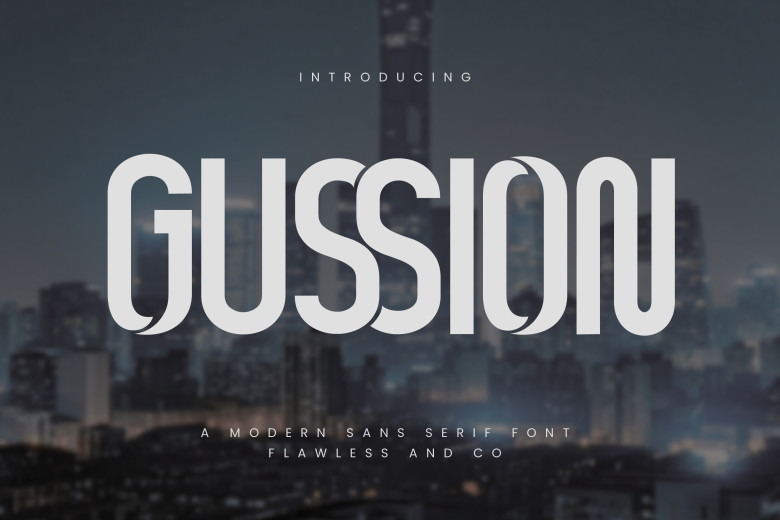
Gussion Font
Gussion, an elegant sans-serif style that beautifully blends contemporary design with clean simplicity. Its sleek lines and well-balanced proportions make it suitable for projects ranging from minimal branding to editorial layouts; and beyond.
By choosing Gussion as the font style for your designs, your customers will experience clarity and modernity that will leave a lasting impression of amazement on them.
Gussion Sans Serif Font